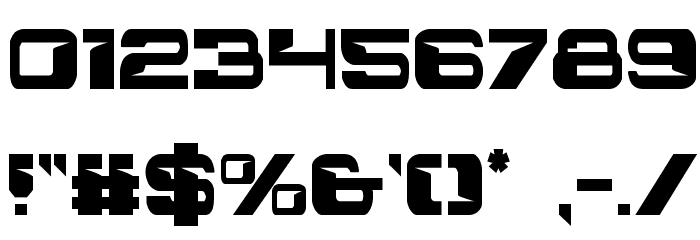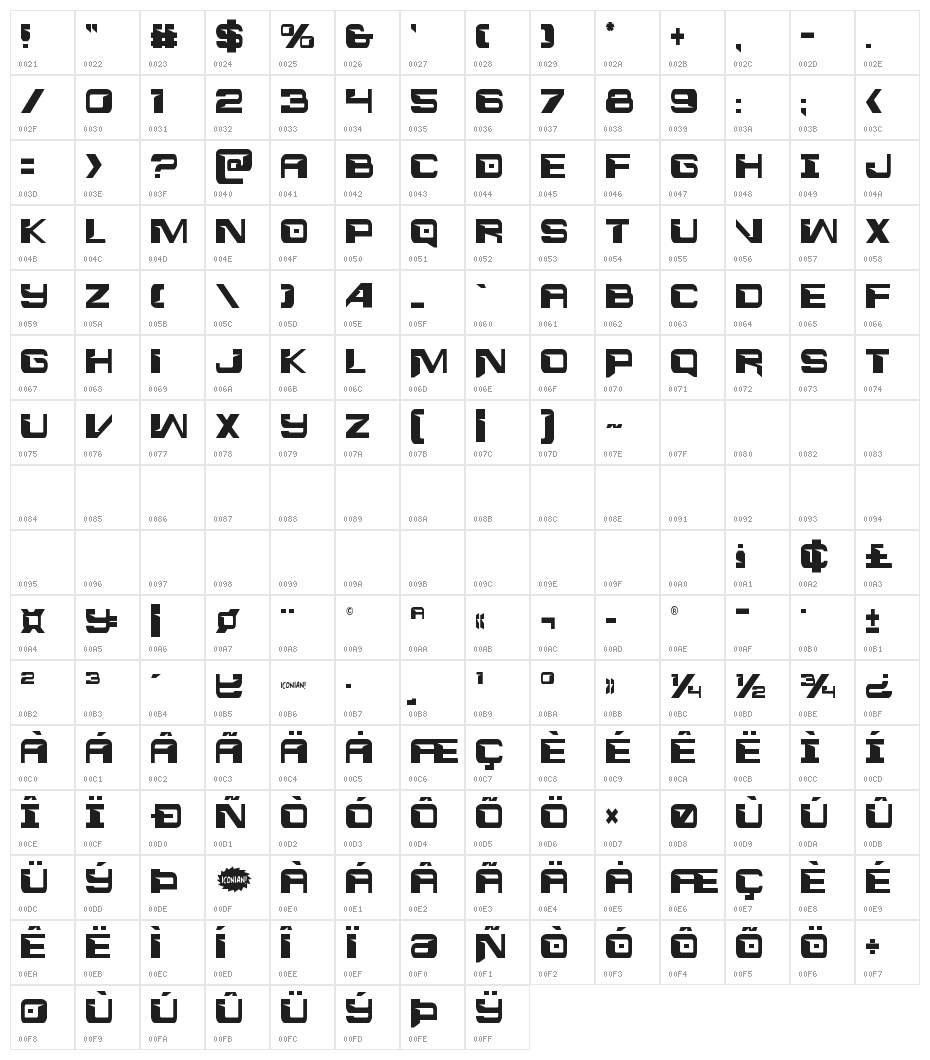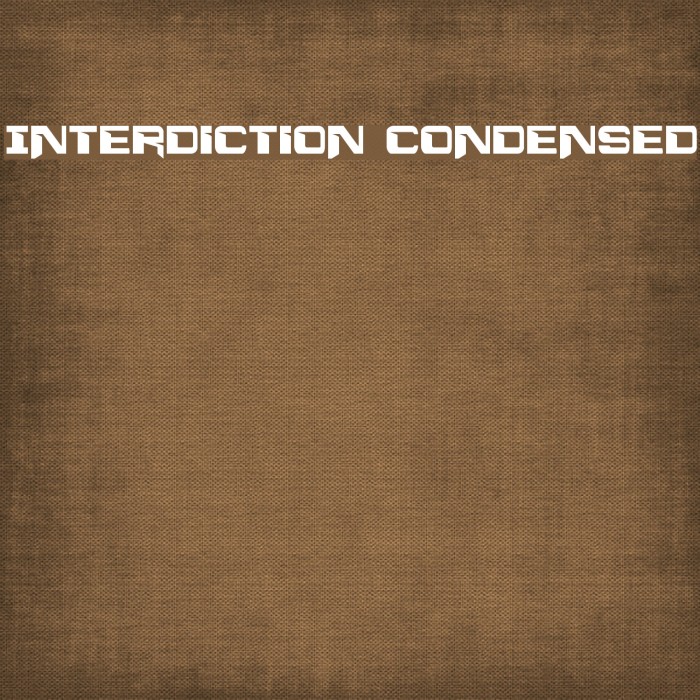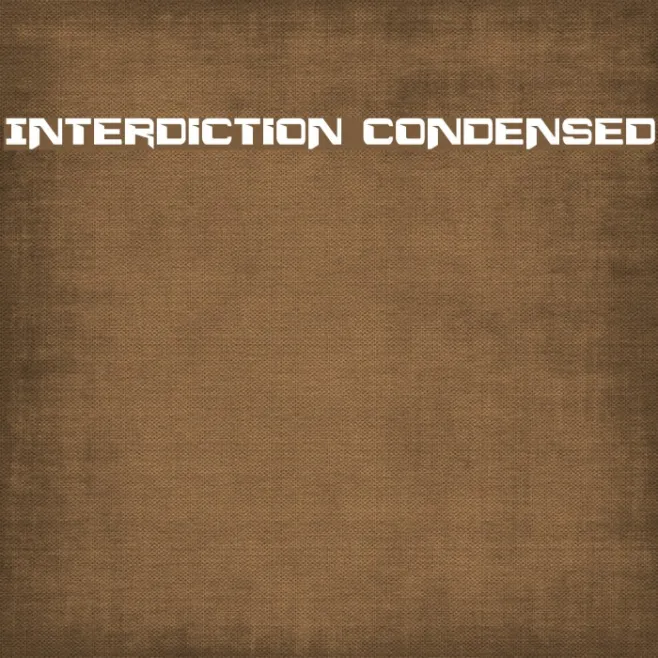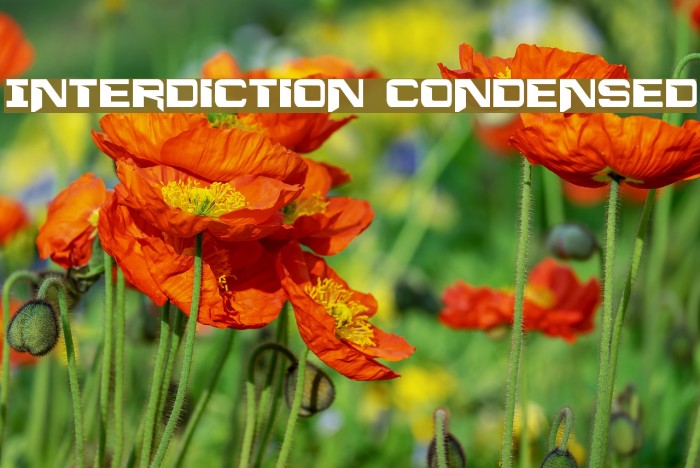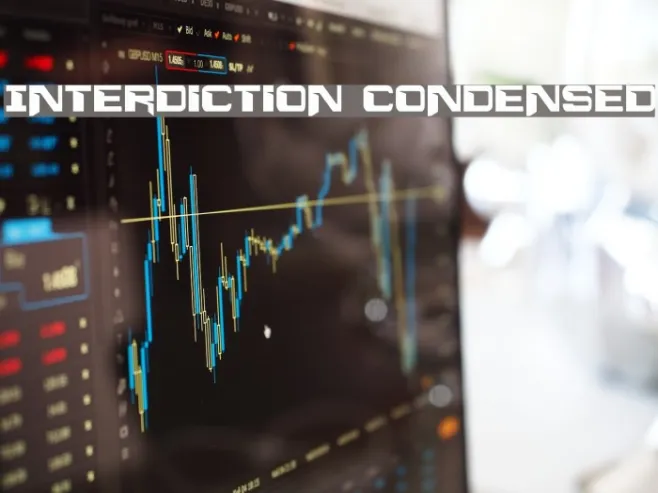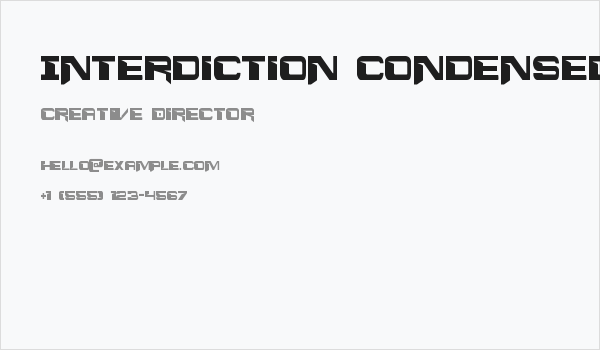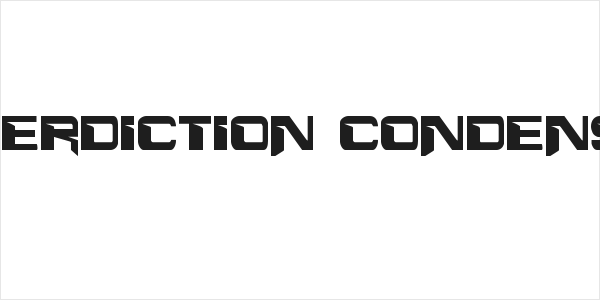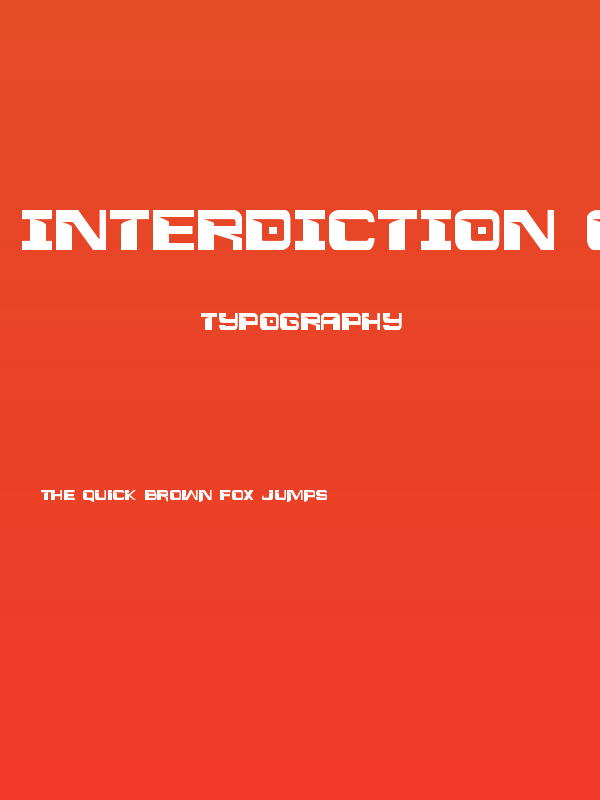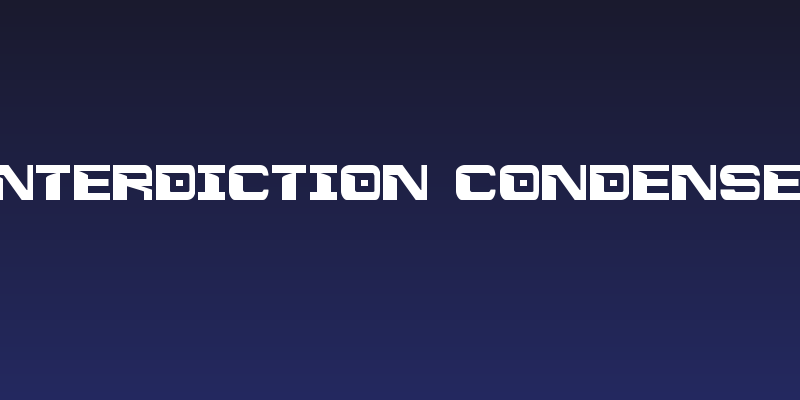
Interdiction Condensed Font
Interdiction Condensed Description
This font exhibits a bold and futuristic design, characterized by its geometric and angular shapes. The letters are condensed, giving a compact appearance, while maintaining a strong visual impact. The uppercase and lowercase letters share a similar structure, emphasizing uniformity and cohesion. The numerals and special characters are designed to match the boldness and angularity of the alphabet, ensuring consistency across all glyphs. This font is ideal for projects that require a modern and edgy aesthetic, such as technology branding, sci-fi themes, or dynamic posters.